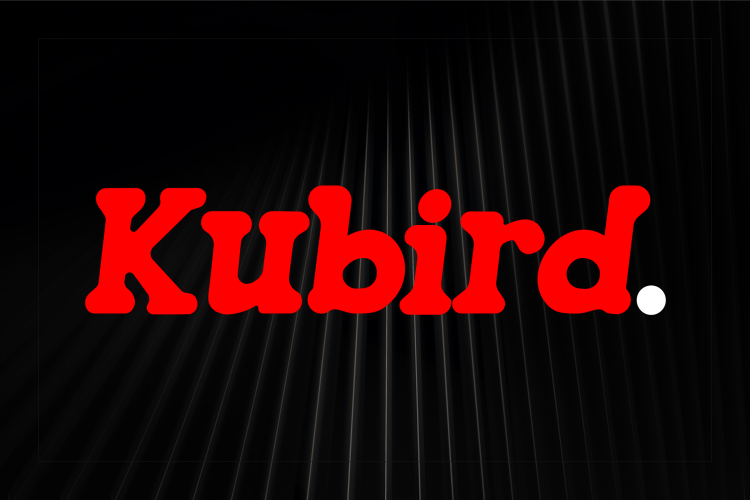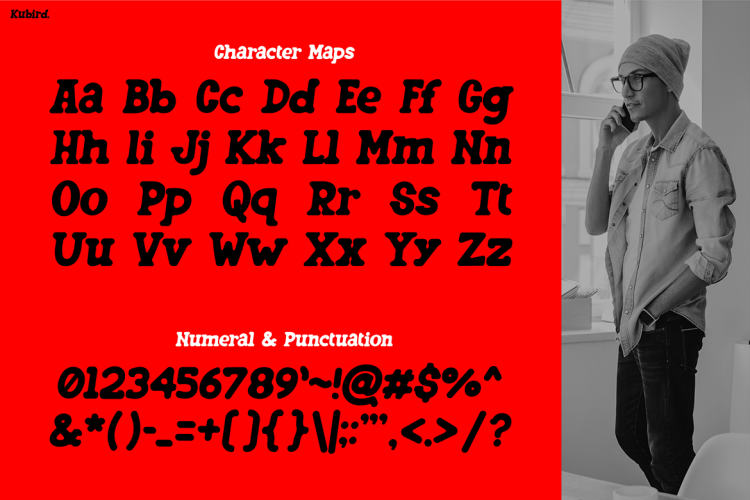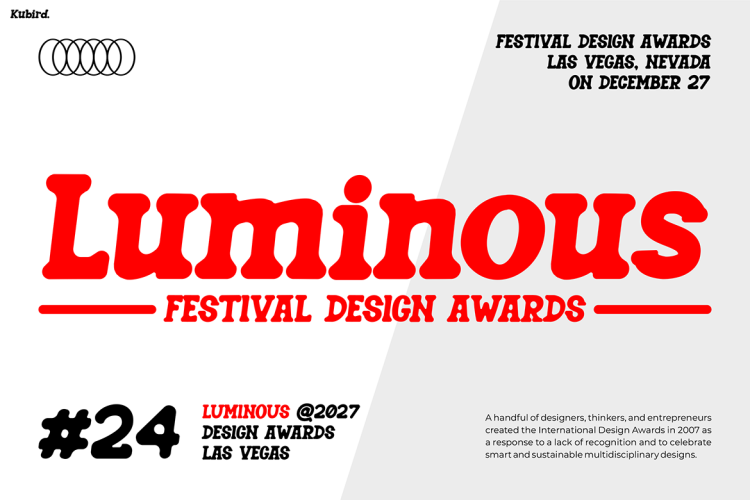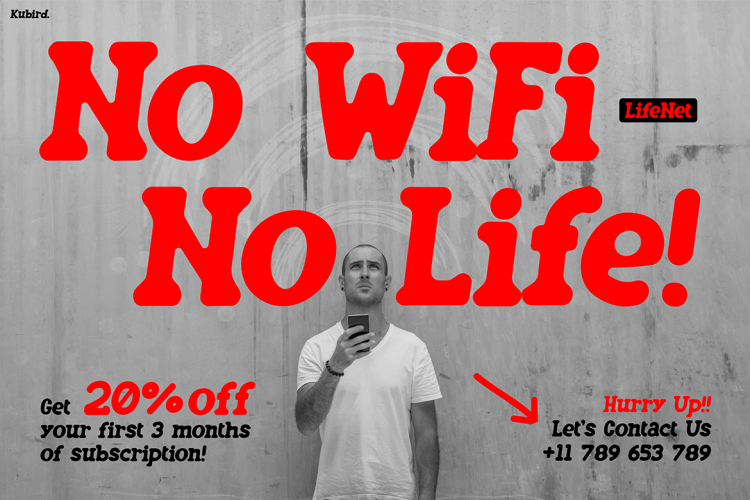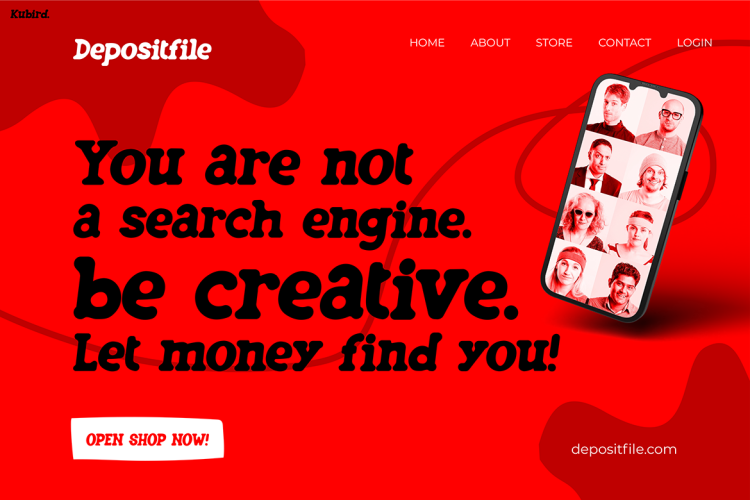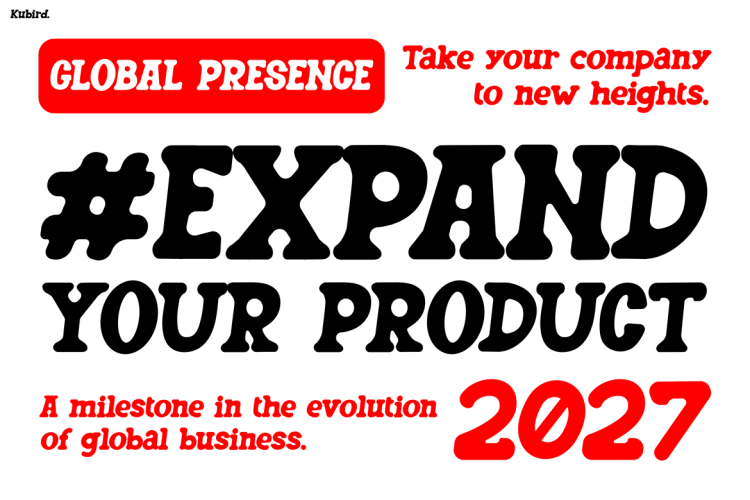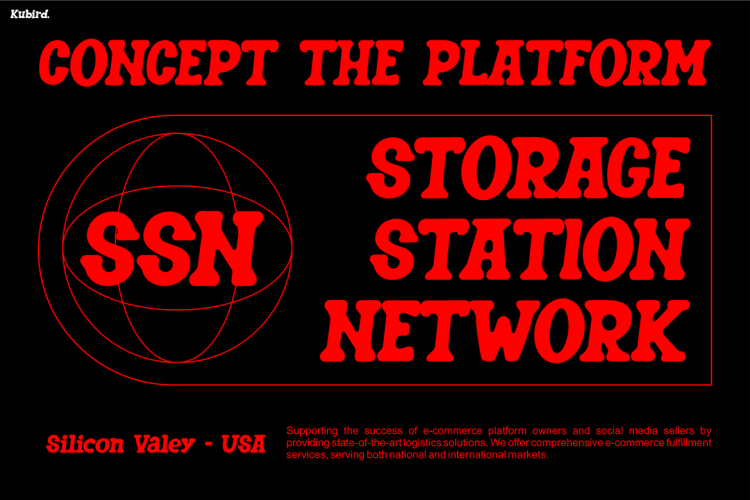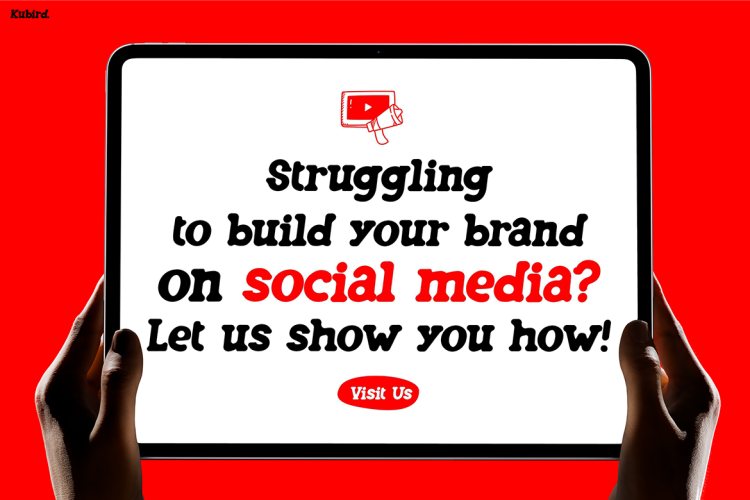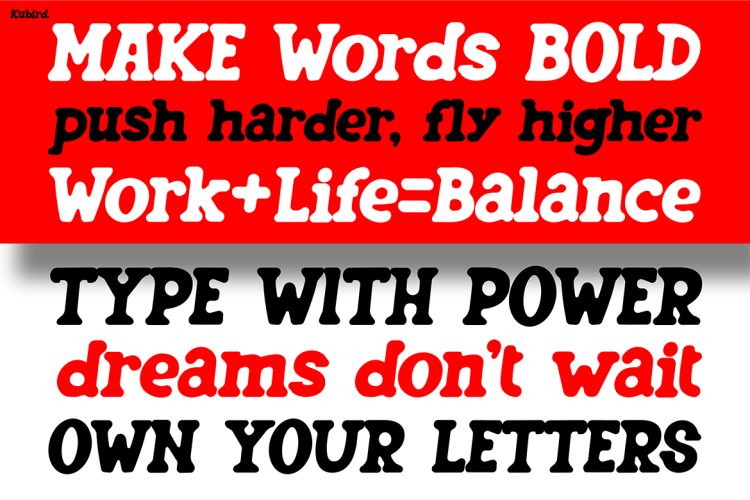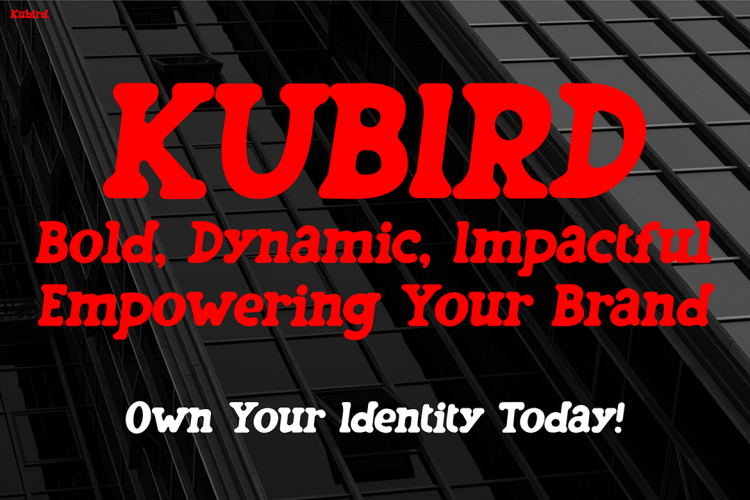
Instagram Font Kubird – Energetic & Modern Display Font for Marketing, Posters & Social Media
Instagram Font Kubird brings bold energy to every design, and therefore helps your message stand out instantly. The typeface uses thick strokes and smooth curves, which creates a confident and expressive look. Moreover, its friendly style stays clean and readable. As a result, your text appears stronger and more noticeable on fast-scrolling platforms. You can use it for branding, posters, headlines, and social media layouts. Because of its strong structure, every word looks louder, clearer, and more memorable.
Instagram Font Kubird blends bold shapes with handcrafted charm, and it also supports movement and rhythm in your layouts. Each letter feels alive, therefore giving your design a dynamic and modern vibe. Additionally, the font works well for quotes, announcements, product promotions, and digital ads. Its thick strokes remain readable even in small spaces. Meanwhile, the rounded edges add a warm and friendly personality.
The font fits many creative needs. For example, you can use it for carousel posts, YouTube thumbnails, event graphics, or web banners. Moreover, it performs well in posters, ads, and other marketing materials. Because of its balanced structure, Kubird adds personality without overwhelming the design. It brings clarity, attitude, and consistency into every project.
Instagram Font Kubird is ideal for content creators, designers, and small business owners. Additionally, marketers and branding teams can rely on its bold, confident style. The font suits industries like fashion, lifestyle, food, beauty, and fitness. It also works for tech, events, personal branding, and creative agencies. For example, use it when you want scroll-stopping visuals. Its strong shapes deliver messages with impact and confidence. Consequently, your brand will feel modern, expressive, and more engaging.
Instagram Font Kubird boosts your brand story with power, clarity, and expressive style. Moreover, it helps every design feel bold and full of character. If you want a font that increases engagement and strengthens your visual identity, Kubird is a perfect choice. Start using it today, and turn simple text into a striking statement.